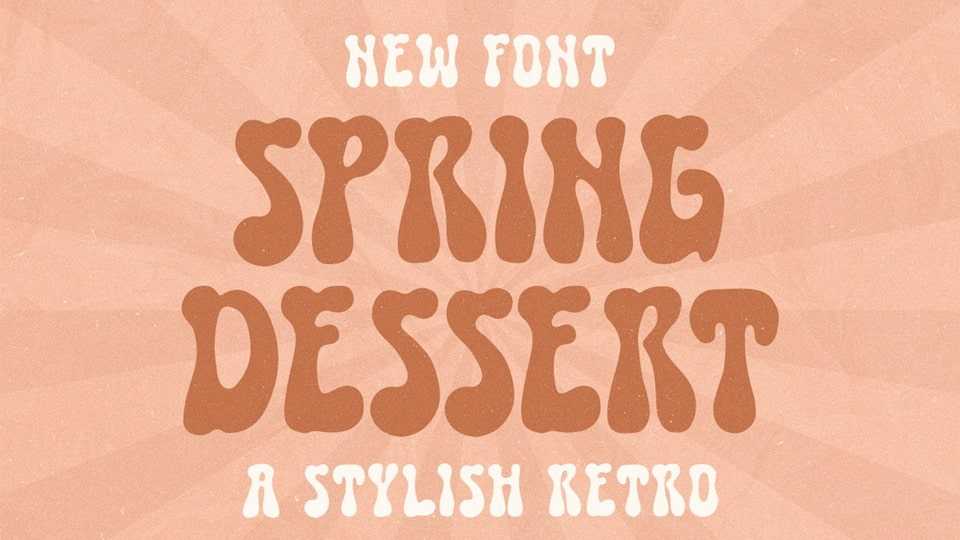
Download Spring Dessert font, a stylish retro display typeface with a bubbly accent. With its vintage groovy vibe, Spring Dessert font is suitable for a wide pool of design projects.